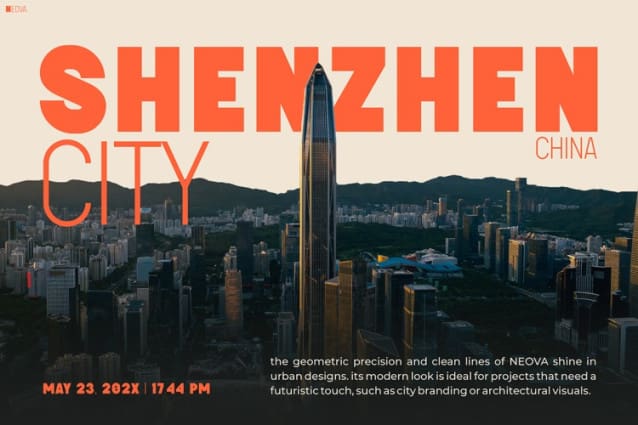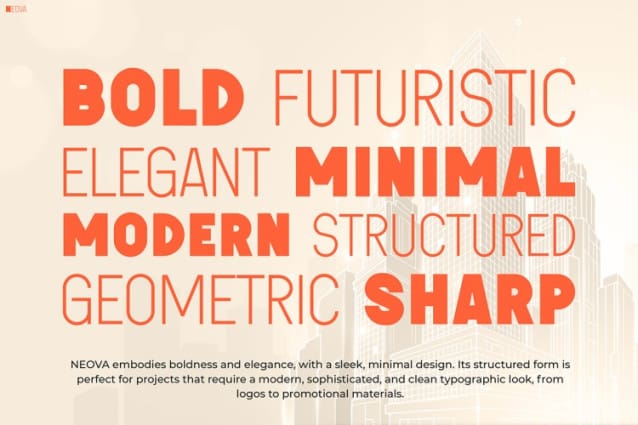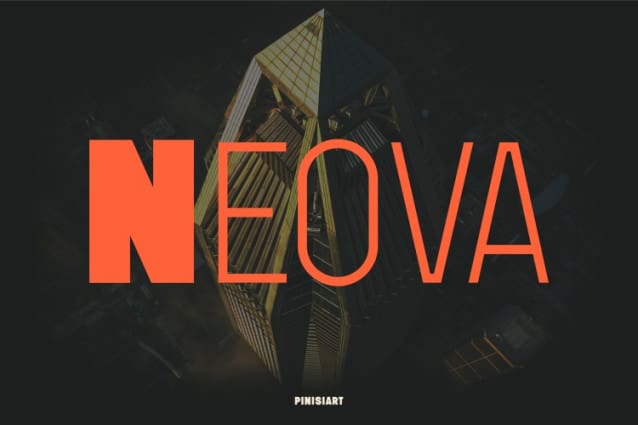
Neova Font
Neova Font is a sleek, sharp, and modern typeface designed for impact. With its geometric structure and bold edges, it effortlessly embodies innovation, confidence, and progress. Whether you need a font for branding, architecture, technology, or high-end marketing, Neova ensures a strong and futuristic visual identity.
Inspired by contemporary skyscrapers and modern engineering, Neova Font features clean lines and precise angles. As a result, it delivers a striking presence, making it perfect for headlines, logos, and digital displays. Additionally, the font’s sharp contrast and bold letterforms enhance clarity and sophistication, allowing any message to stand out effortlessly.
Furthermore, Neova blends futuristic aesthetics with timeless functionality. It works seamlessly across both print and digital platforms, ensuring excellent readability and design consistency. Its bold yet elegant style makes it a powerful choice for professionals, creatives, and brands that want to exude strength and innovation.